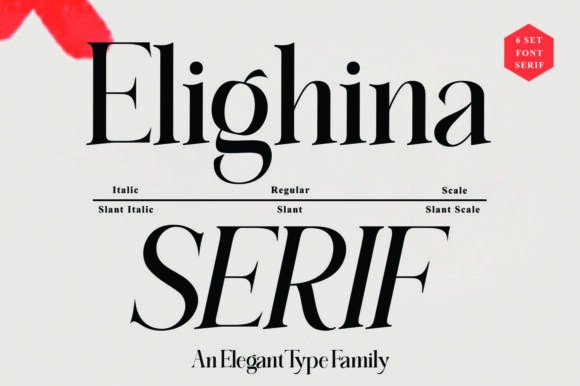
Introducing Elighina Serif: Elevate Your Designs with Sophistication and Versatility
In the world of typography, a well-crafted font can make all the difference in elevating your design from ordinary to extraordinary. Meet Elighina Serif, a stunning font family that embodies the perfect blend of classic refinement and contemporary edge. With its six thoughtfully designed styles, Elighina Serif offers a rich typographic toolkit for designers seeking to bring sophistication and versatility to their creations.
A Family of Six Styles: Unleash Your Creative Potential
Elighina Serif boasts an impressive range of six styles, each carefully crafted to cater to diverse design needs:
- Regular: The foundation of the Elighina Serif family, providing a solid base for a wide range of applications.
- Italic: Adding a touch of elegance and fluidity, perfect for emphasizing text or creating visual interest.
- Slant: Injecting a sense of dynamism and energy, ideal for headlines, titles, or attention-grabbing text.
- Scale: Offering a unique take on traditional serif typography, with a focus on vertical proportions.
- Slant Italic: A beautiful combination of slanted and italicized forms, perfect for creating sophisticated, eye-catching text.
- Slant Scale: A bold and expressive style, ideal for making a statement or adding a touch of drama to your design.
Design Characteristics: Where Elegance Meets Expressiveness
Elighina Serif’s design is characterized by:
- Sharp Serifs: Providing a crisp, refined look that’s perfect for luxury branding, magazine headlines, and upscale packaging.
- Fluid Curves: Adding a touch of elegance and sophistication to your designs.
- Expressive Forms: Enabling designers to convey complex emotions and ideas with clarity and precision.
Ideal Applications: Where Elighina Serif Shines
Elighina Serif’s versatility makes it an excellent choice for a wide range of design applications, including:
- Luxury Branding: Create high-end logos, business cards, and marketing materials that exude sophistication and refinement.
- Magazine Headlines: Grab attention with bold, eye-catching headlines that showcase your publication’s personality.
- Fashion Editorials: Add a touch of glamour and style to your fashion spreads, editorials, and advertisements.
- Upscale Packaging: Elevate your product packaging with elegant, high-end typography that reflects your brand’s values.
Why Choose Elighina Serif?
With Elighina Serif, you can:
- Enhance Readability: Its clear, legible design ensures that your text is easy to read, even in long-form layouts.
- Convey Sophistication: Elighina Serif’s refined aesthetic instantly elevates your design, making it perfect for high-end applications.
- Experiment with Versatility: With six styles to choose from, you can experiment with different looks and moods, ensuring your design stays fresh and engaging.
Whether you’re a designer, craftsperson, or simply someone who appreciates beautiful typography, Elighina Serif is an excellent addition to your creative toolkit. Its unique blend of classic refinement and contemporary edge makes it an ideal choice for projects that demand sophistication, elegance, and versatility.